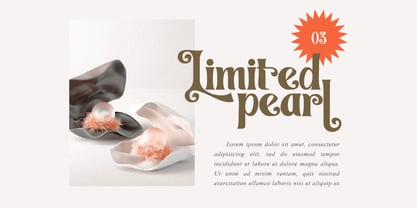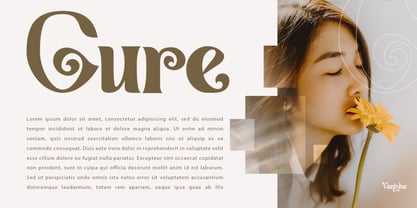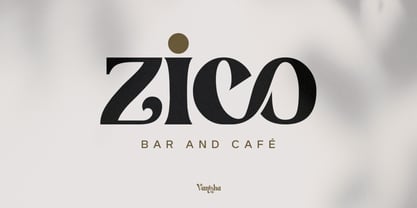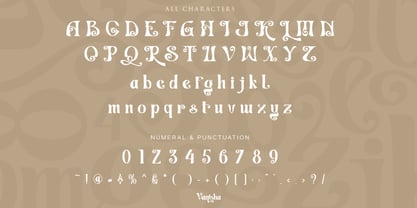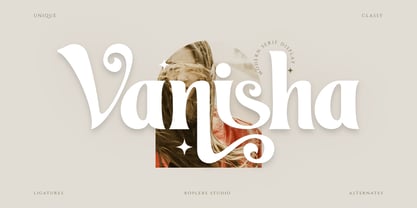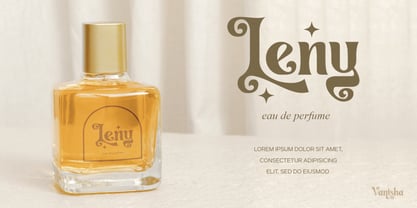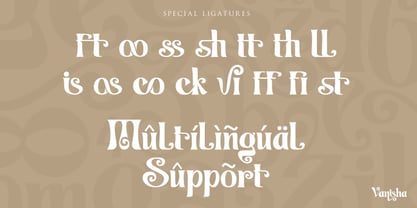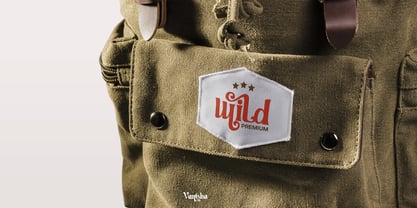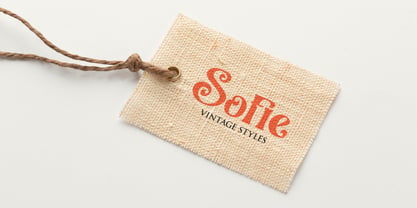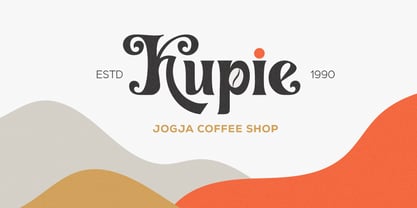
Vanisha
Vanisha is an elegant modern serif display typeface inspired by the graceful beauty of Art Nouveau. Designed with refined contrast, expressive curves, and decorative swashes, it creates a sophisticated balance between timeless classic typography and contemporary luxury.
Featuring beautifully crafted ligatures and stylistic alternates, Vanisha allows you to create distinctive wordmarks and elegant typography with minimal effort. Every character has been carefully designed to give your headlines, branding, and editorial layouts a premium appearance while maintaining excellent readability.
Whether you're designing for fashion, beauty, cosmetics, jewelry, perfumes, boutique brands, luxury packaging, or wedding stationery, Vanisha delivers a unique personality that feels both artistic and professional.
Its versatile character makes it equally suitable for logos, magazine titles, packaging, social media graphics, product labels, book covers, advertising campaigns, websites, and high-end branding projects.